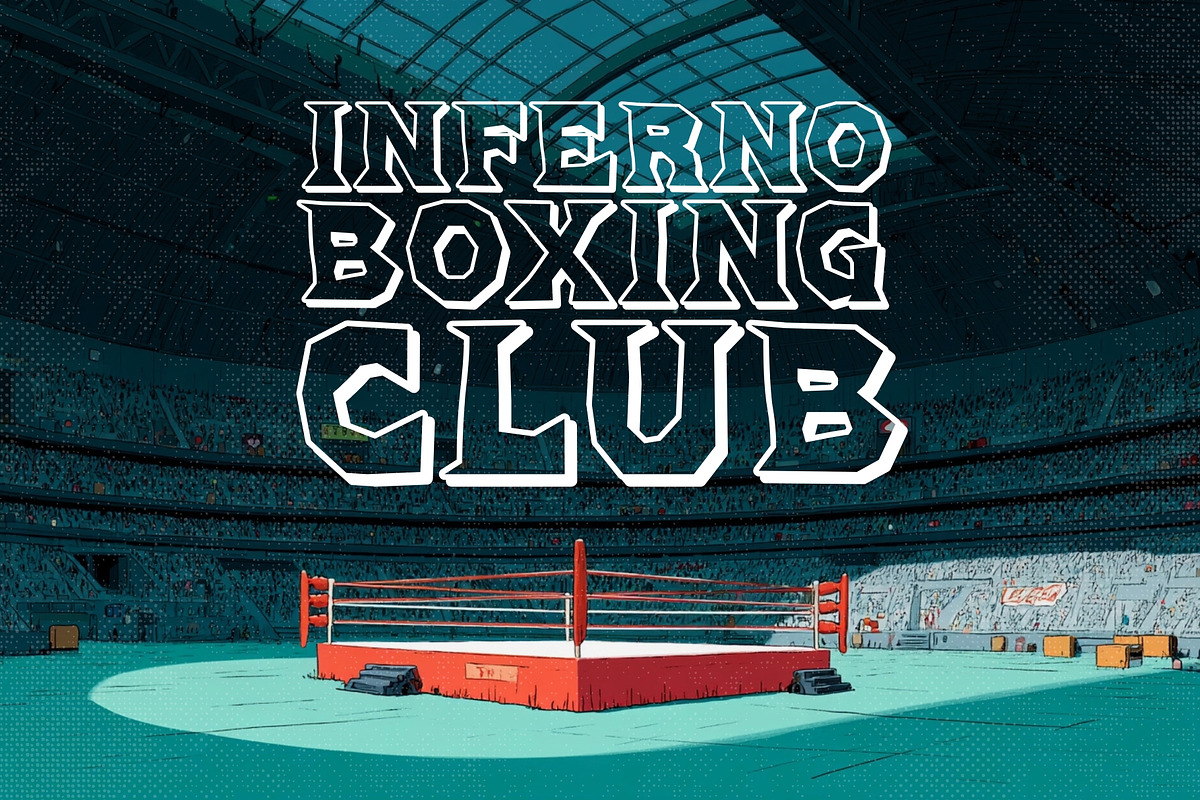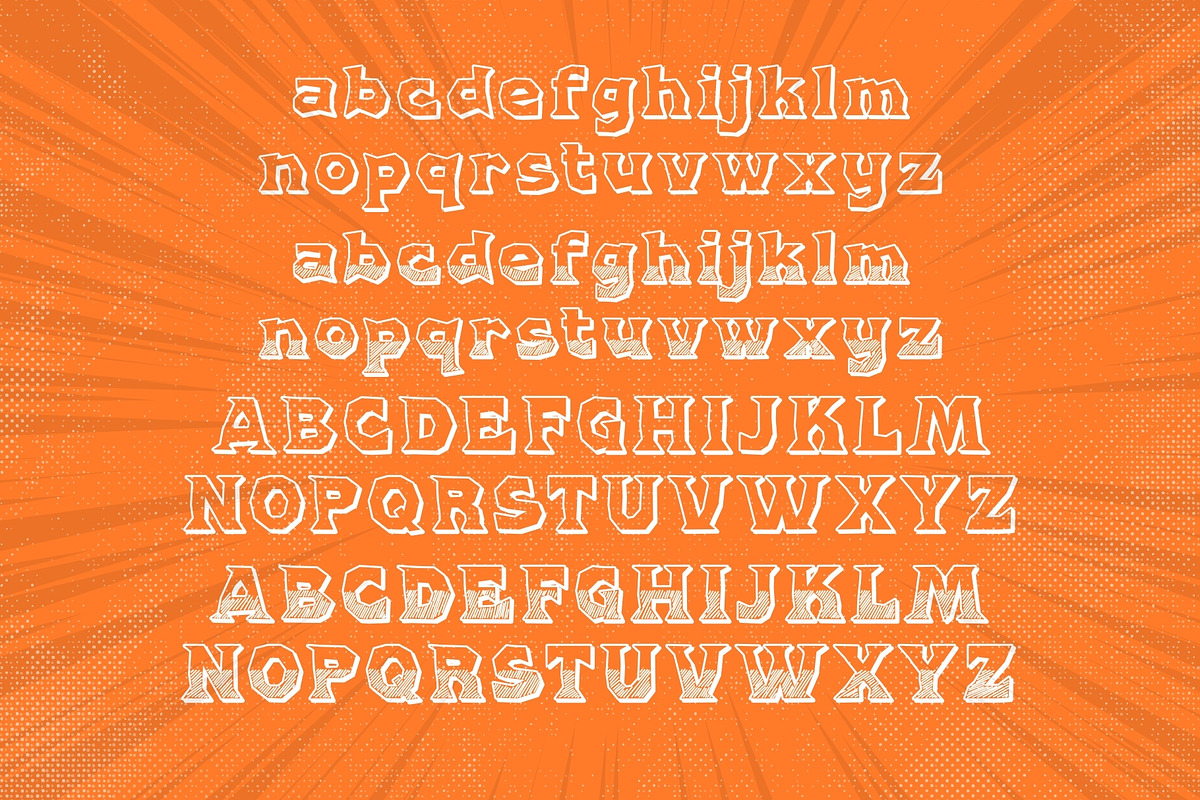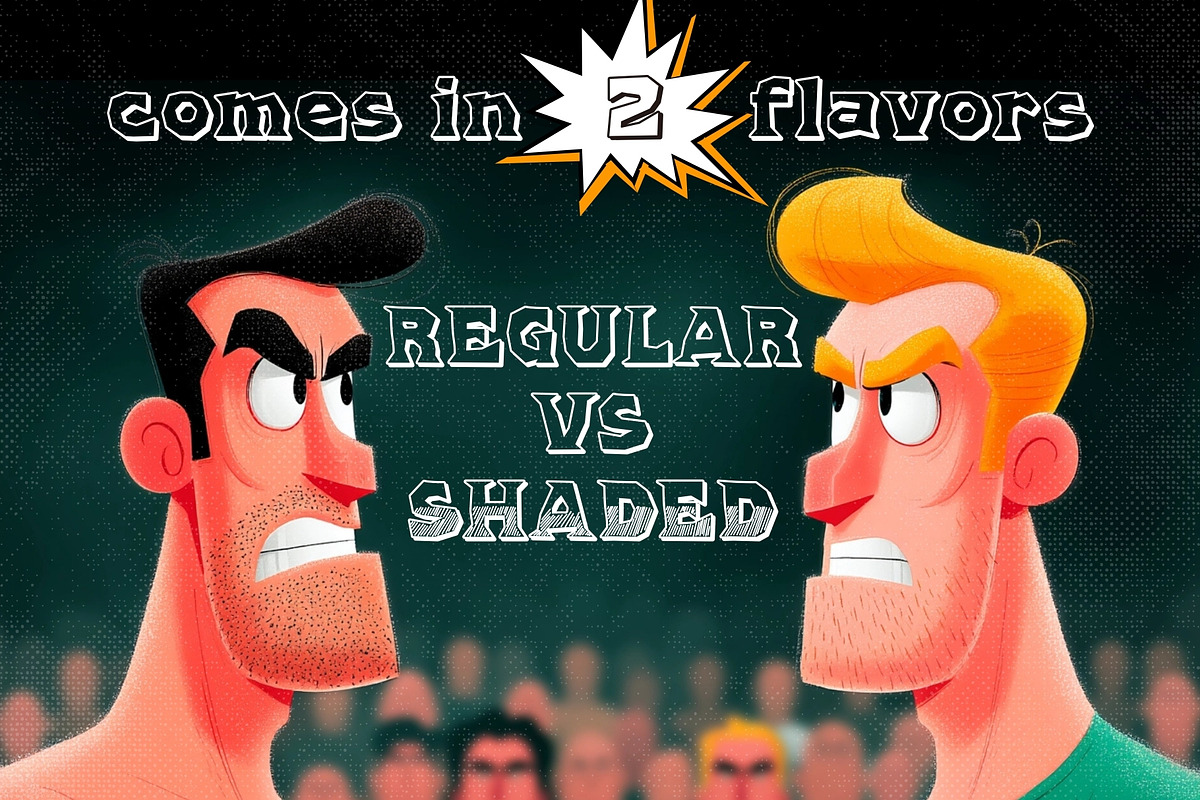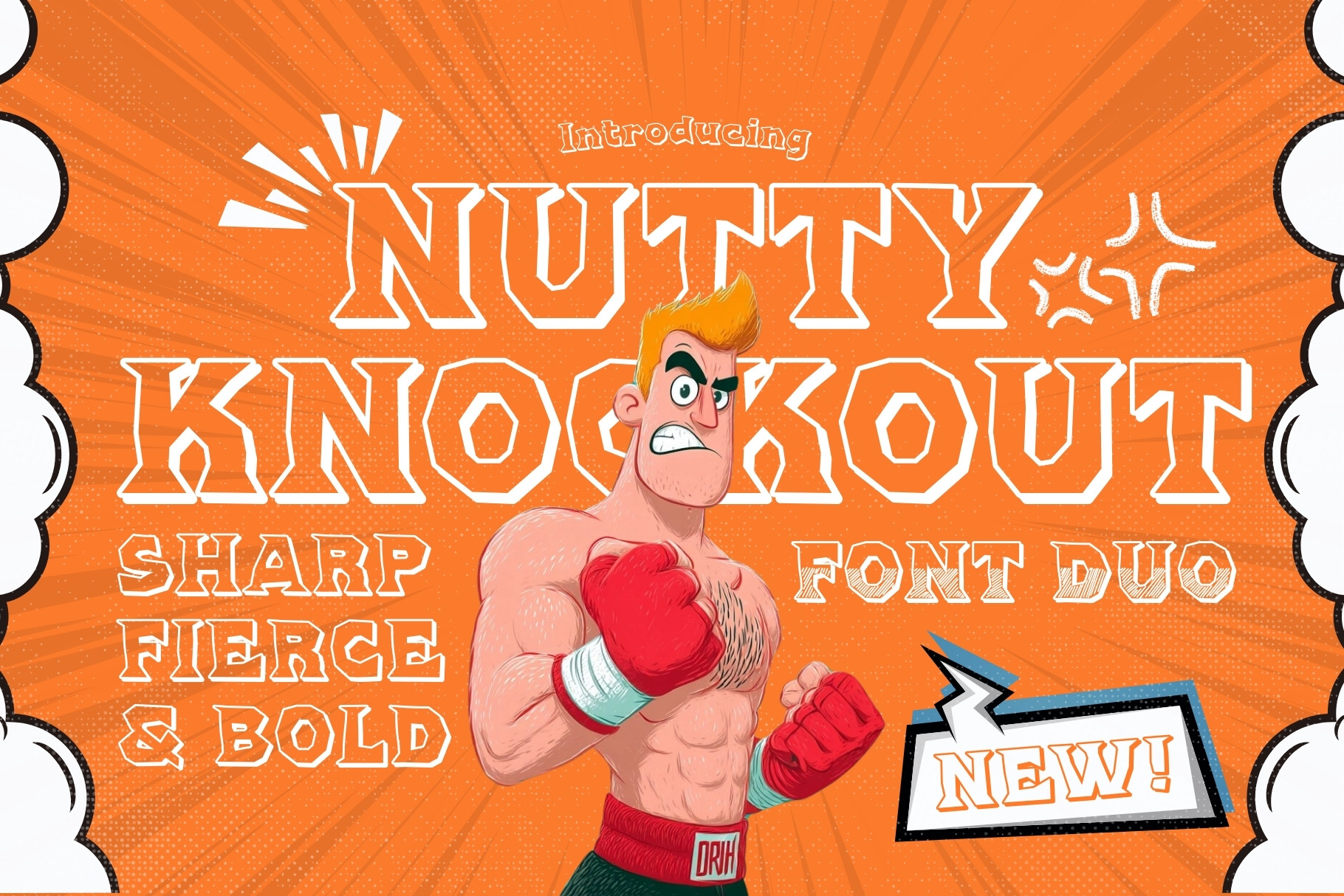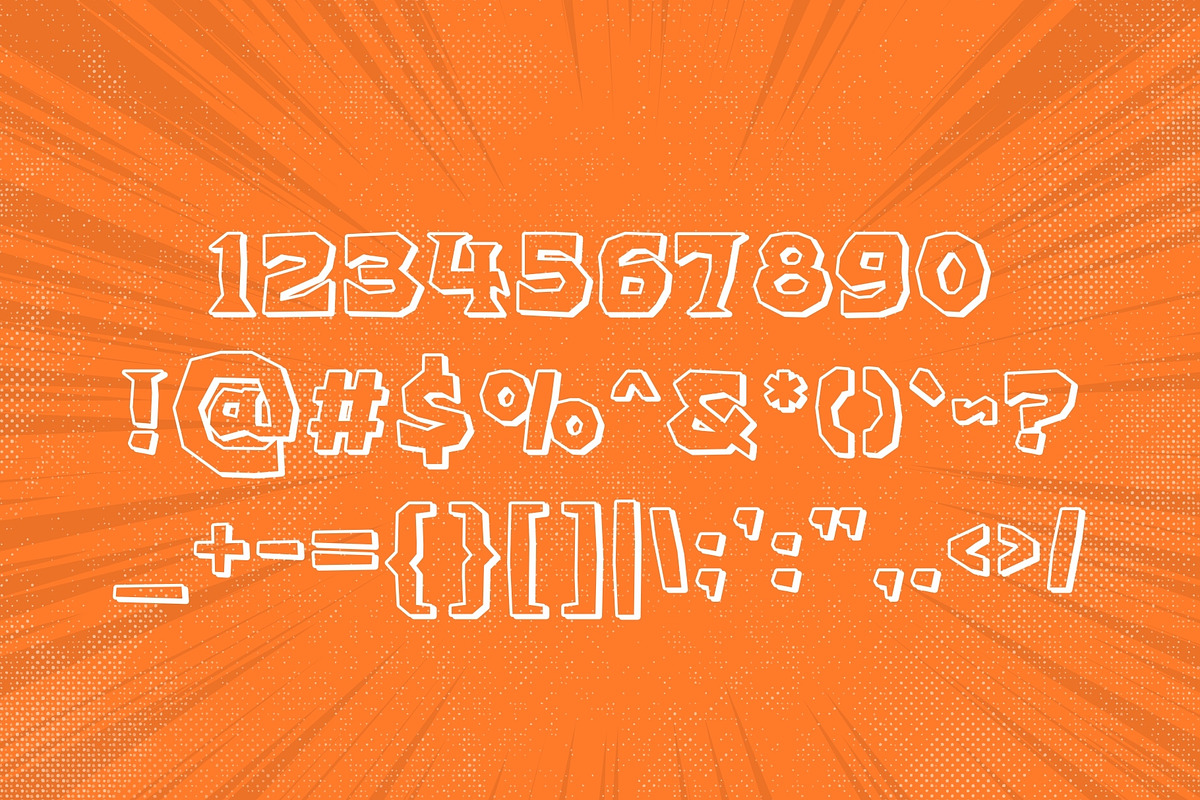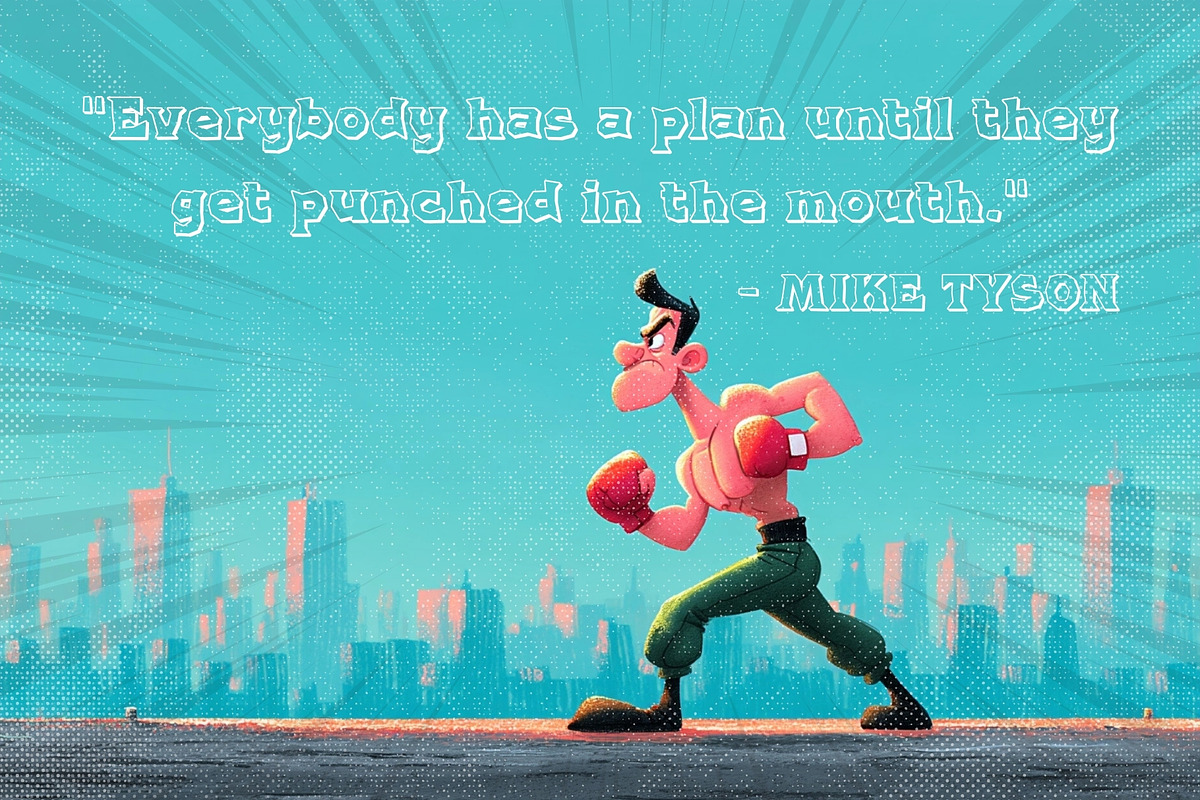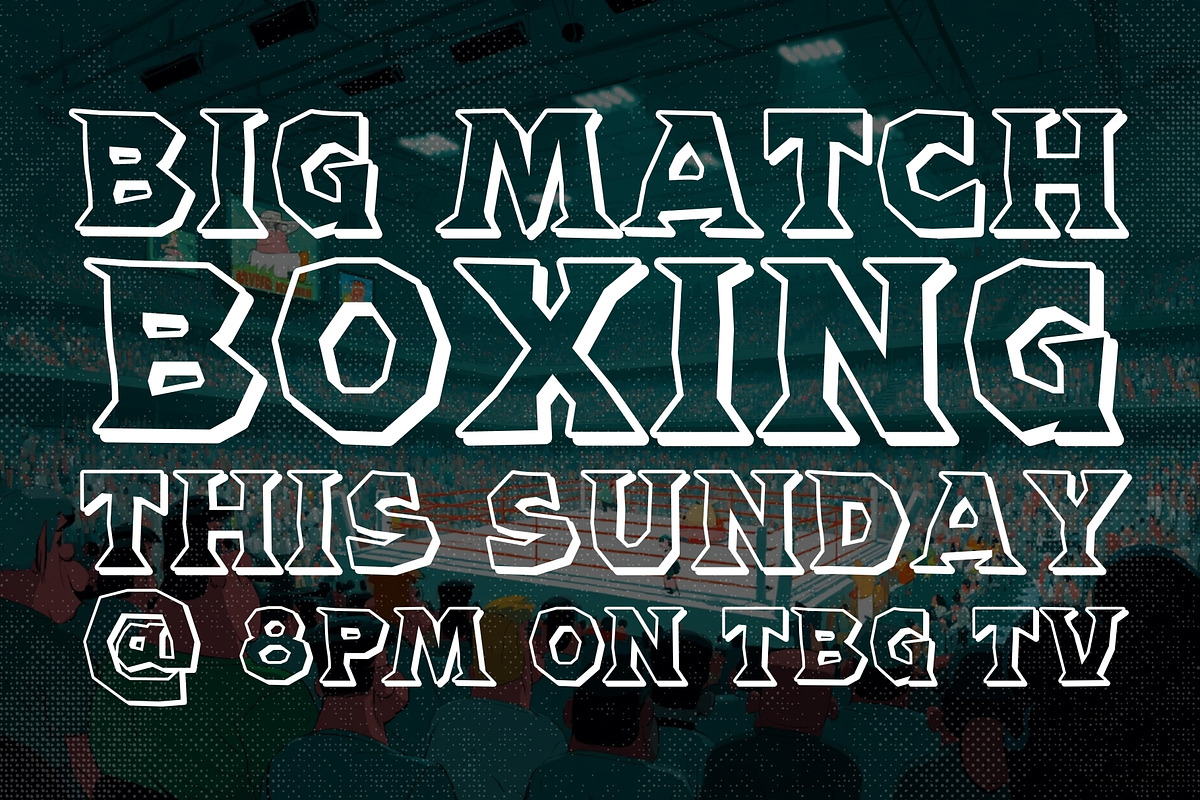
Nutty Knockout Font Duo
Introducing Nutty Knockout – The Font That Packs a Punch!
Get ready to turn heads and grab attention with Nutty Knockout, a bold, high-energy typeface inspired by the wild world of old-school comic books and Saturday matinees! Bursting with character and unstoppable charisma, Nutty Knockout comes in two knockout styles: Regular and Shaded, giving you dynamic options to make your designs explode with personality.
Whether you're crafting colossal billboards, punchy headlines, eye-popping social media graphics, electrifying posters, or unforgettable flyers, Nutty Knockout is your secret weapon. With its explosive letterforms and dramatic flair, this font delivers a one-two punch of nostalgia and modern punchiness, guaranteed to leave an impact.
If you want your designs to shout, not whisper, Nutty Knockout is your ultimate champion. Get ready to swing big, win bigger, and leave your audience reeling (in the best way possible)!